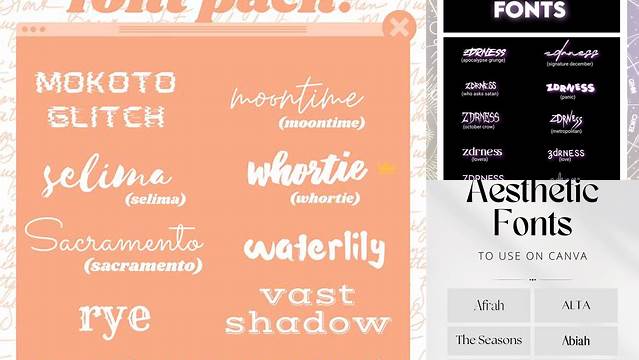
Aesthetic Fonts For Edits: Level Up Your Design
Choosing the right font can dramatically transform your edits, adding a touch of personality and visual appeal. Let's explore the world of aesthetic fonts and how they can elevate your creative projects. Guys, get ready to dive into a world of stylish typography that will make your edits pop!
1. Understanding Aesthetic Fonts
Aesthetic fonts aren't just about readability; they're about conveying a mood, a feeling, and an overall vibe. The perfect font can turn a simple edit into a stunning visual masterpiece. Different fonts evoke different emotions, so it's essential to understand what makes a font "aesthetic" and how to choose one that fits your project's theme. Whether you're going for a minimalist, vintage, or futuristic look, there's an aesthetic font out there for you. Think of fonts as the clothing your words wear; they need to match the occasion and express the right message. For instance, a sleek sans-serif font might be perfect for a modern tech blog, while a whimsical script font could add charm to a wedding invitation. The key is to experiment and find what resonates with your creative vision.
2. Popular Serif Fonts for Aesthetic Edits
Serif fonts, with their classic and sophisticated appeal, are a fantastic choice for adding a touch of elegance to your edits. These fonts, characterized by the small decorative strokes at the end of each letter, can evoke feelings of tradition and refinement. Some popular serif fonts for aesthetic edits include Times New Roman, Garamond, and Georgia. Times New Roman, a ubiquitous font, offers a timeless look that works well in formal contexts. Garamond, known for its readability and graceful curves, is perfect for adding a touch of sophistication. Georgia, designed for screen readability, is an excellent choice for digital projects. When using serif fonts, consider the spacing and kerning to ensure a polished and professional appearance. Serif fonts can also be paired with sans-serif fonts to create a visually appealing contrast, adding depth and interest to your designs. Remember, the goal is to enhance the overall aesthetic of your edit while maintaining readability.
3. Sans-Serif Fonts for Modern Aesthetic Edits
If you're aiming for a clean, contemporary look, sans-serif fonts are your best bet. Sans-serif fonts lack the decorative strokes found in serif fonts, giving them a minimalist and modern aesthetic. They are often used in digital designs, logos, and headlines because of their legibility and versatility. Popular choices include Helvetica, Arial, and Montserrat. Helvetica, a widely used font, is known for its neutrality and clarity. Arial, similar to Helvetica, is another excellent option for clean and readable text. Montserrat, a geometric sans-serif font, adds a touch of sophistication and modernity to any project. When using sans-serif fonts, pay attention to the font weight and size to ensure readability. Pairing sans-serif fonts with different weights can create visual hierarchy and add depth to your designs. These fonts are perfect for conveying a sense of modernity and simplicity, making them ideal for websites, presentations, and social media graphics.
4. Script Fonts for Elegant Aesthetic Edits
For a touch of elegance and personality, script fonts are an excellent choice. These fonts mimic the fluidity of handwriting, adding a personal and artistic flair to your edits. They are often used in invitations, logos, and decorative designs. Popular script fonts include Brush Script, Pacifico, and Lobster. Brush Script, with its bold and dynamic strokes, is perfect for creating eye-catching headlines. Pacifico, a casual and friendly script font, adds a touch of warmth and personality. Lobster, a bold condensed script font, is ideal for making a statement. When using script fonts, it's important to ensure readability, especially in longer passages of text. Use them sparingly and pair them with simpler fonts to create a balanced and visually appealing design. Script fonts can instantly elevate your edits, adding a touch of sophistication and charm.
5. Display Fonts for Unique Aesthetic Edits
When you want to make a statement and stand out from the crowd, display fonts are the way to go. These fonts are designed to be eye-catching and attention-grabbing, making them perfect for headlines, posters, and branding materials. Display fonts come in a wide variety of styles, from bold and geometric to quirky and whimsical. Some popular display fonts include Impact, Bebas Neue, and Playfair Display. Impact, a powerful and condensed font, is perfect for creating impactful headlines. Bebas Neue, a clean and modern sans-serif font, is ideal for adding a touch of sophistication. Playfair Display, a transitional serif font, offers a classic yet elegant look. When using display fonts, consider the overall design and ensure that the font complements the other elements. Use them sparingly to avoid overwhelming the viewer. Display fonts can transform your edits into visually stunning creations, adding personality and flair.
6. Monospace Fonts for Technical Aesthetic Edits
If you're looking for a font that conveys a sense of technical precision and uniformity, monospace fonts are an excellent choice. These fonts have a fixed width for each character, giving them a distinctive and consistent appearance. Monospace fonts are often used in coding, programming, and technical documentation. Popular choices include Courier New, Consolas, and Monaco. Courier New, a classic monospace font, is known for its readability and straightforward design. Consolas, designed for on-screen reading, is an excellent choice for coding environments. Monaco, a clean and minimalist monospace font, is ideal for creating a modern and technical aesthetic. When using monospace fonts, consider the context and ensure that the font complements the overall design. They can also be used to create a retro or vintage look, adding a unique touch to your edits. Monospace fonts are perfect for projects that require a sense of precision and uniformity.
7. Vintage Fonts for Retro Aesthetic Edits
To evoke a sense of nostalgia and timelessness, vintage fonts are the perfect choice for your edits. These fonts capture the essence of different eras, from the Art Deco elegance of the 1920s to the groovy vibes of the 1970s. Using vintage fonts can add character and authenticity to your designs, making them stand out with a unique retro flair. Some popular vintage fonts include Bauhaus, Futura, and American Typewriter. Bauhaus, inspired by the Bauhaus movement, offers a clean and geometric look. Futura, known for its simplicity and elegance, is perfect for adding a touch of sophistication. American Typewriter, with its typewriter-inspired design, evokes a sense of nostalgia and craftsmanship. When using vintage fonts, consider the color palette and overall design to ensure a cohesive and authentic look. These fonts are perfect for creating posters, logos, and branding materials that capture the spirit of a bygone era.
8. Futuristic Fonts for Modern Aesthetic Edits
For a cutting-edge and contemporary look, futuristic fonts are the way to go. These fonts often feature clean lines, geometric shapes, and a sense of innovation, making them perfect for designs that need to convey a sense of modernity and progress. Incorporating futuristic fonts can instantly elevate your edits, giving them a sleek and forward-thinking aesthetic. Some popular choices include Exo, Orbitron, and Roboto. Exo, a geometric sans-serif font, offers a clean and modern look. Orbitron, inspired by science fiction, is perfect for creating a futuristic vibe. Roboto, designed for screen readability, is an excellent choice for digital projects. When using futuristic fonts, consider the overall design and ensure that the font complements the other elements. They are perfect for creating website headers, app interfaces, and branding materials that push the boundaries of design.
9. Handwritten Fonts for Personal Aesthetic Edits
To add a personal and intimate touch to your edits, handwritten fonts are an excellent choice. These fonts mimic the look and feel of actual handwriting, giving your designs a warm and authentic vibe. Using handwritten fonts can make your edits feel more relatable and engaging, perfect for projects that require a personal connection. Some popular handwritten fonts include Amatic SC, Indie Flower, and Permanent Marker. Amatic SC, a hand-drawn sans-serif font, offers a casual and friendly look. Indie Flower, with its whimsical and playful design, is perfect for adding a touch of fun. Permanent Marker, inspired by marker pen lettering, evokes a sense of spontaneity and creativity. When using handwritten fonts, consider the context and ensure that the font complements the overall design. They are perfect for creating greeting cards, invitations, and social media posts that feel personal and heartfelt.
10. Combining Different Fonts for Aesthetic Harmony
One of the most effective ways to create visually stunning edits is by combining different fonts to achieve aesthetic harmony. Mixing and matching fonts can add depth, contrast, and visual interest to your designs, making them more engaging and memorable. However, it's important to do it strategically to avoid creating a cluttered or confusing look. A good rule of thumb is to choose one dominant font for headlines and a complementary font for body text. Consider pairing a serif font with a sans-serif font, or a bold font with a lighter font. Experiment with different font weights, sizes, and styles to find the perfect combination. Tools like FontPair and Adobe Fonts can help you discover harmonious font combinations. By combining different fonts effectively, you can create visually appealing edits that capture attention and convey your message with clarity and style.
11. Font Pairing Tips for Stunning Aesthetic Edits
Font pairing is an art that can elevate your edits from ordinary to extraordinary. To achieve stunning aesthetic edits, consider these tips: Start with a clear hierarchy by choosing one dominant font for headlines and a subordinate font for body text. Contrast is key; pair a serif font with a sans-serif font to create visual interest. Ensure readability by selecting fonts that are easy to read in both headlines and body text. Limit your font choices to two or three fonts to maintain a cohesive look. Use font weights and sizes to create visual hierarchy and guide the viewer's eye. Test your font pairings on different devices and screen sizes to ensure they look good across all platforms. Resources like FontPair and Adobe Fonts can inspire you with harmonious font combinations. With careful consideration and experimentation, you can master the art of font pairing and create visually stunning edits that captivate your audience.
12. Where to Find Free Aesthetic Fonts
Finding the perfect aesthetic font doesn't have to break the bank. There are numerous resources online where you can find free aesthetic fonts to enhance your edits. Websites like Google Fonts, DaFont, and Font Squirrel offer a vast selection of fonts that are free for personal and commercial use. Google Fonts is a great place to start, with its extensive library of high-quality fonts that are easy to download and use. DaFont offers a wide variety of fonts, from classic to quirky, with user-friendly browsing and filtering options. Font Squirrel provides hand-picked fonts that are licensed for commercial use, ensuring that you can use them in your projects without any legal concerns. When downloading free fonts, always check the licensing terms to ensure that you are using them appropriately. With a little bit of searching, you can find a treasure trove of free aesthetic fonts to elevate your edits and bring your creative vision to life.
13. Using Fonts in Different Editing Software
Understanding how to use fonts in different editing software is crucial for creating aesthetic edits. Whether you're using Adobe Photoshop, Canva, or a mobile editing app, the process of adding and customizing fonts can vary. In Adobe Photoshop, you can easily add fonts by installing them on your computer and then selecting them from the font menu in the text tool. Canva offers a user-friendly interface with a wide selection of built-in fonts and the option to upload your own. Mobile editing apps like PicsArt and Phonto provide a range of font options and customization tools for creating edits on the go. Experiment with different font settings such as size, color, spacing, and kerning to achieve the desired look. Familiarize yourself with the specific features of your editing software to maximize your font customization options. By mastering the use of fonts in different editing software, you can unleash your creativity and create visually stunning edits that stand out.
14. Font Licensing and Usage Rights Explained
Before using any font in your edits, it's essential to understand font licensing and usage rights. Fonts are intellectual property, and their use is governed by licensing agreements that specify how you can use them. Some fonts are free for personal and commercial use, while others require a license purchase. Understanding the terms of the license will prevent you from violating copyright laws. Font licensing agreements typically outline restrictions on distribution, modification, and embedding. For example, a font licensed for personal use may not be used in commercial projects. Similarly, a font licensed for web use may require a different license for print use. Always read the licensing agreement carefully before using a font to ensure that you are complying with the terms. Websites like Creative Market and MyFonts offer fonts with clear licensing information, making it easier to choose fonts that meet your specific needs. By understanding font licensing and usage rights, you can protect yourself from legal issues and use fonts responsibly in your edits.
15. How Font Choice Impacts Your Edit's Message
The font choice you make can significantly impact the message your edit conveys. Fonts have the power to evoke emotions, set the tone, and influence how viewers perceive your content. For example, a serif font like Times New Roman might convey a sense of tradition and authority, while a sans-serif font like Helvetica might communicate modernity and simplicity. A script font can add a touch of elegance and personality, while a display font can make a bold statement. Consider your target audience and the message you want to convey when selecting a font. A playful font might be appropriate for a children's book, but it would be out of place in a legal document. Similarly, a sophisticated font might be suitable for a luxury brand, but it would be too formal for a casual blog. By carefully considering how font choice impacts your edit's message, you can create more effective and engaging designs that resonate with your audience.
16. The Psychology of Fonts: Evoking Emotions
The psychology of fonts plays a crucial role in evoking emotions and influencing perceptions in your edits. Different fonts can trigger different emotional responses, so understanding these associations can help you choose the right font for your project. Serif fonts often evoke feelings of tradition, stability, and trustworthiness. They are commonly used in formal settings and for conveying authority. Sans-serif fonts, on the other hand, tend to communicate modernity, cleanliness, and simplicity. They are popular in digital designs and for conveying a sense of innovation. Script fonts can evoke feelings of elegance, creativity, and romance. They are often used in invitations, logos, and decorative designs. Display fonts are designed to grab attention and convey a specific mood, whether it's boldness, playfulness, or sophistication. By understanding the psychology of fonts, you can strategically choose fonts that align with your desired emotional impact and create more effective and engaging edits.
17. Font Trends in 2024 for Aesthetic Edits
Staying up-to-date with font trends is essential for creating aesthetic edits that feel current and relevant. In 2024, several font trends are gaining popularity, including bold and geometric sans-serif fonts, retro-inspired fonts, and variable fonts that offer a wide range of customization options. Bold and geometric sans-serif fonts are perfect for making a statement and conveying a sense of modernity. Retro-inspired fonts are making a comeback, adding a touch of nostalgia and personality to designs. Variable fonts allow you to adjust the font weight, width, and other parameters, giving you greater control over the typography. Other notable font trends include hand-drawn fonts, serif fonts with a modern twist, and fonts that incorporate unique ligatures and alternates. By incorporating these font trends into your edits, you can create designs that feel fresh, innovative, and visually appealing.
18. Creating Font Mood Boards for Inspiration
Creating font mood boards is a fantastic way to gather inspiration and visualize different typographic styles for your edits. A font mood board is a visual collection of fonts, colors, images, and textures that capture the overall aesthetic you want to achieve. Start by identifying the mood or theme you want to convey, such as minimalist, vintage, or futuristic. Then, gather fonts that align with that theme, along with images and colors that complement them. Use tools like Pinterest, Behance, or Adobe Creative Cloud Express to create your mood board. Experiment with different font combinations, sizes, and styles to see how they work together. A font mood board can help you narrow down your font choices and ensure that your typography aligns with your overall design vision. It's also a great way to share your ideas with clients or collaborators and get feedback before finalizing your font selections.
19. Customizing Fonts for a Unique Aesthetic
Customizing fonts is a powerful way to create a unique aesthetic and set your edits apart from the crowd. While using off-the-shelf fonts is convenient, customizing them can add a personal touch and ensure that your typography aligns perfectly with your brand or project. There are several ways to customize fonts, including adjusting the letter spacing, kerning, and leading; modifying the font weight and style; and adding unique ligatures or alternates. You can also use font editing software like FontLab or Glyphs to create your own custom fonts from scratch. Experiment with different customization techniques to see how they affect the overall look and feel of your typography. By customizing fonts, you can create a distinctive visual identity and ensure that your edits stand out with a unique and memorable aesthetic.
20. The Role of Kerning and Tracking in Aesthetic Typography
Kerning and tracking play a vital role in achieving aesthetic typography and ensuring that your edits look polished and professional. Kerning refers to the adjustment of the space between individual letters to improve readability and visual balance. Tracking, also known as letter-spacing, refers to the uniform adjustment of the space between all letters in a word or phrase. Proper kerning and tracking can enhance the legibility of your text, create a more harmonious visual appearance, and prevent awkward gaps or overlaps between letters. Pay attention to the kerning and tracking settings in your editing software and make adjustments as needed to optimize the typography. In some cases, you may need to manually adjust the kerning between specific letter pairs to achieve the desired look. By mastering the art of kerning and tracking, you can elevate the quality of your typography and create more aesthetically pleasing edits.
21. Using Fonts to Enhance Brand Identity
Using fonts to enhance brand identity is a crucial aspect of creating a cohesive and recognizable brand image. Fonts are a key element of visual communication and can play a significant role in shaping how your brand is perceived. Choose fonts that align with your brand's personality, values, and target audience. For example, a luxury brand might opt for elegant serif fonts, while a tech startup might choose modern sans-serif fonts. Consistency is key when using fonts to enhance brand identity. Select a primary font for your logo and headlines and a secondary font for body text and other supporting elements. Use these fonts consistently across all your marketing materials, including your website, social media profiles, and print collateral. A well-defined font strategy can help you create a strong and memorable brand identity that resonates with your target audience.
22. Accessibility Considerations When Choosing Aesthetic Fonts
Accessibility considerations are paramount when choosing aesthetic fonts for your edits. It's essential to select fonts that are readable and legible for all users, including those with visual impairments or reading disabilities. Choose fonts with clear and simple letterforms, adequate contrast, and sufficient spacing between letters and lines. Avoid using overly decorative or stylized fonts that can be difficult to read. Consider the font size and ensure that it's large enough to be easily readable on different devices and screen sizes. Use color contrast tools to verify that your font colors provide sufficient contrast against the background. Provide alternative text for images that contain text and use semantic HTML to structure your content. By prioritizing accessibility considerations, you can ensure that your edits are inclusive and accessible to everyone.
23. Pairing Fonts with Different Color Palettes
Pairing fonts with different color palettes is an essential aspect of creating visually appealing and harmonious edits. The colors you choose can significantly impact how your fonts are perceived, so it's important to select colors that complement your typography. Consider the mood and message you want to convey when choosing colors. Warm colors like red and orange can evoke feelings of energy and excitement, while cool colors like blue and green can create a sense of calm and serenity. Use color contrast effectively to ensure that your fonts are readable against the background. Experiment with different color combinations to see how they affect the overall look and feel of your typography. Tools like Adobe Color and Coolors can help you create harmonious color palettes. By carefully pairing fonts with different color palettes, you can create visually stunning edits that capture attention and convey your message with clarity and style.
24. Using Font Animations for Dynamic Aesthetic Edits
Using font animations can add a dynamic and engaging element to your aesthetic edits. Font animations can range from simple fades and slides to complex transformations and distortions. Experiment with different animation techniques to see how they can enhance the visual impact of your typography. Consider using font animations to draw attention to key headlines or calls to action. Use animations sparingly to avoid overwhelming the viewer and ensure that they complement the overall design. Tools like Adobe After Effects and Cinema 4D offer a wide range of animation options for creating sophisticated font effects. When creating font animations, keep accessibility in mind and ensure that the animations are not distracting or disorienting for users with vestibular disorders. By incorporating font animations thoughtfully, you can create dynamic and visually stunning edits that capture attention and convey your message with impact.
25. Font Design Resources and Learning Platforms
There are numerous font design resources and learning platforms available to help you enhance your skills and knowledge in typography. Whether you're a beginner or an experienced designer, these resources can provide valuable insights, tools, and inspiration to elevate your work. Websites like Typewolf, I Love Typography, and Fonts in Use offer a wealth of information on font trends, typography best practices, and font pairings. Online learning platforms like Skillshare, Udemy, and Coursera offer courses on typography, font design, and lettering. Software like FontLab and Glyphs can help you create your own custom fonts. Books like "The Elements of Typographic Style" by Robert Bringhurst and "Thinking with Type" by Ellen Lupton are considered essential reading for typography enthusiasts. By leveraging these font design resources and learning platforms, you can expand your knowledge, refine your skills, and create more impactful and aesthetically pleasing typography.
26. Advanced Typography Techniques for Aesthetic Appeal
Mastering advanced typography techniques can significantly enhance the aesthetic appeal of your edits and set them apart from the ordinary. These techniques go beyond basic font selection and formatting, delving into the nuances of letterforms, spacing, and visual hierarchy. One such technique is optical kerning, which involves adjusting the space between letters based on their visual appearance rather than relying solely on metrics. Another technique is using ligatures and alternates to create unique and elegant word shapes. Micro-typography, the art of fine-tuning the details of letterforms and spacing, can also contribute to a more refined and polished look. Experimenting with variable fonts, which offer a wide range of stylistic options within a single font file, can unlock new creative possibilities. By mastering these advanced typography techniques, you can create visually stunning and memorable edits that captivate your audience.
27. Mobile Font Editing: Apps and Best Practices
Mobile font editing has become increasingly popular with the rise of smartphones and tablets. Numerous apps are available that allow you to create stunning edits on the go, with a wide range of font options and customization tools. Some popular mobile font editing apps include Phonto, Over, and Canva. When editing fonts on mobile devices, it's important to consider the screen size and resolution. Choose fonts that are legible and readable on small screens, and avoid using overly decorative or stylized fonts that can be difficult to read. Use font sizes and spacing that are appropriate for mobile viewing, and ensure that your text is well-aligned and properly formatted. Experiment with different font colors and backgrounds to create visually appealing designs. By following these mobile font editing best practices, you can create professional-looking edits that stand out on social media and other mobile platforms.
28. Ethical Font Usage: Respecting Designers' Rights
Ethical font usage is crucial for respecting the rights of font designers and ensuring that you are using fonts legally and responsibly. Fonts are intellectual property, and their use is governed by licensing agreements that specify how you can use them. Before using any font in your edits, it's essential to understand the terms of the license and ensure that you are complying with them. Some fonts are free for personal and commercial use, while others require a license purchase. Avoid using pirated or illegally obtained fonts, as this is a violation of copyright law and can have serious consequences. When using fonts in commercial projects, always give credit to the font designer. Support independent font foundries and designers by purchasing their fonts and promoting their work. By practicing ethical font usage, you can help create a fair and sustainable ecosystem for font designers and ensure that their creative contributions are properly recognized and rewarded.
29. Troubleshooting Common Font Issues in Edits
Troubleshooting common font issues is an essential skill for any designer or editor. Font issues can arise for various reasons, such as missing fonts, corrupted font files, or compatibility problems between different software and operating systems. When troubleshooting font issues, start by checking that the font is installed correctly on your computer. If the font is missing, download and install it from a reputable source. If the font file is corrupted, try downloading a fresh copy. If you're experiencing compatibility problems, try converting the font to a different format, such as OpenType (OTF) or TrueType (TTF). Clear your font cache and restart your computer to resolve any lingering issues. If you're still having trouble, consult the documentation for your editing software or seek help from online forums and communities. By mastering these troubleshooting techniques, you can resolve common font issues quickly and efficiently and ensure that your edits look their best.
30. The Future of Fonts: Emerging Technologies and Trends
The future of fonts is shaping up to be exciting, with emerging technologies and trends transforming the way we create, use, and interact with typography. Variable fonts, which allow for a wide range of stylistic variations within a single font file, are gaining popularity and offer new possibilities for customization and creativity. Color fonts, which support multiple colors within a single glyph, are adding a new dimension to typography and enabling designers to create more visually expressive designs. Artificial intelligence (AI) is being used to automate various aspects of font design, such as kerning and spacing, and to generate new fonts based on user input. Virtual reality (VR) and augmented reality (AR) are creating new opportunities for immersive and interactive typography experiences. As these technologies continue to evolve, we can expect to see even more innovative and groundbreaking developments in the future of fonts, shaping the way we communicate and express ourselves through typography.